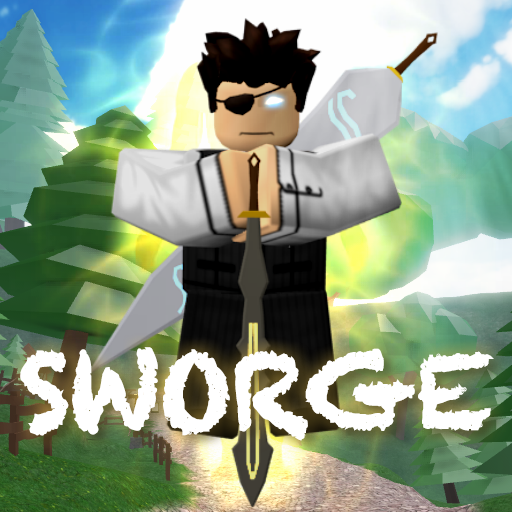
The issue is, I don’t know if this font will attract my target audience. Should I do something more 3D/cartoonish, something like the mad city font? I know this seems like a small issue, but game icons are the first thing the player sees and it could greatly affect the game’s initial growth.
For reference the game is action and a bit of strategy (you have to customize your gear in a way that affects gameplay)
Great icon, I would only change a couple things. First off, to answer your question, I do think you should change the font. The current font, while it seems cartoon-ish, also looks hand created and a little bit difficult to read. I feel like this would put off younger audiences from clicking on it. I would personally recommend this font, as I feel it would look the best for the style that you are going for. You can also add stronger drop shadows to give it that 3D feel.
In terms of the logo in general, I would just increase the resolution of the character by rendering it at higher pixels, and then making the entire image higher in pixels as well.
Looks amazing! However something seems slightly off putting, and I can’t put my finger on it, I think it might just be the blending of the background with the character, but other than that, I’m loving all the fonts!